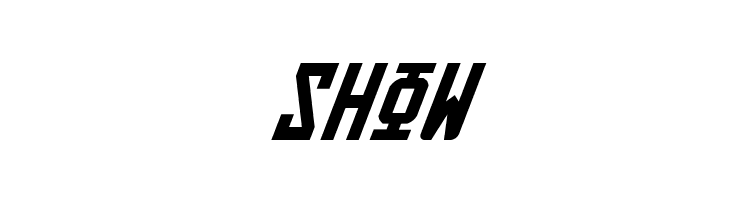
kkontagion print Bold Font
- Font: kkontagion print Bold
A bold, italicized font with a geometric, angular design and a dynamic, forward-leaning slant.